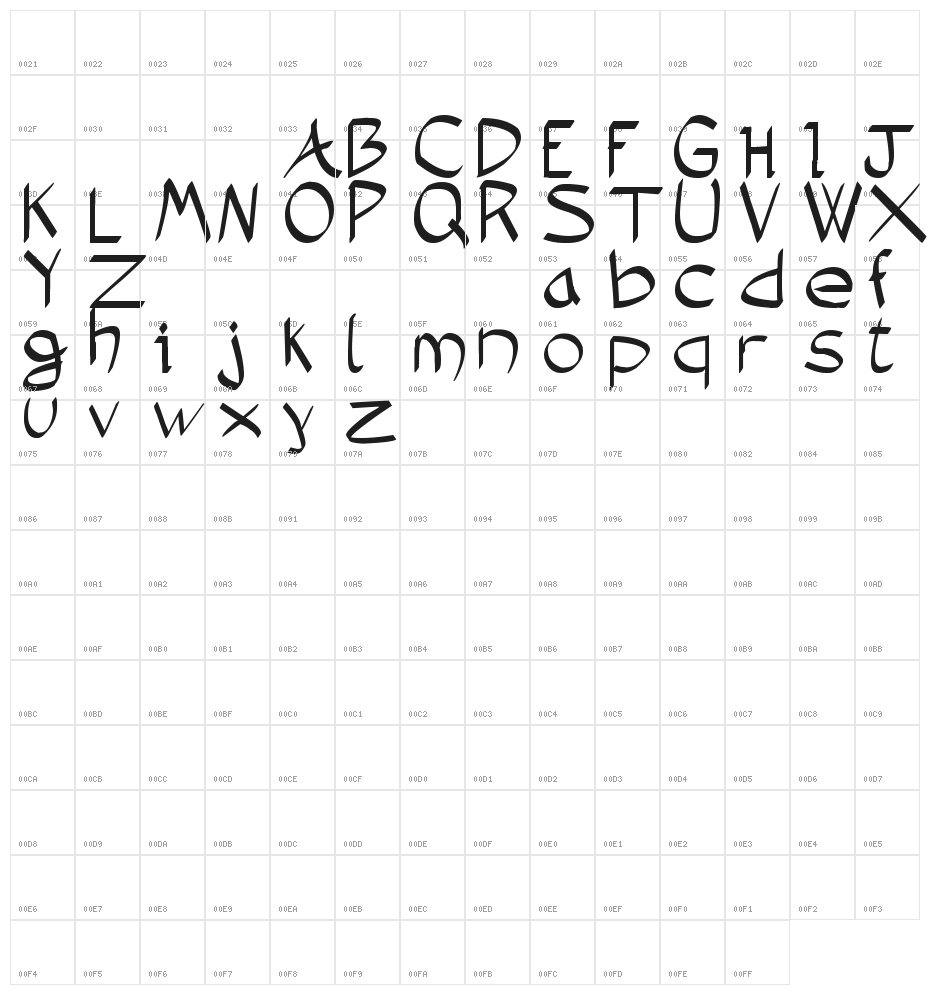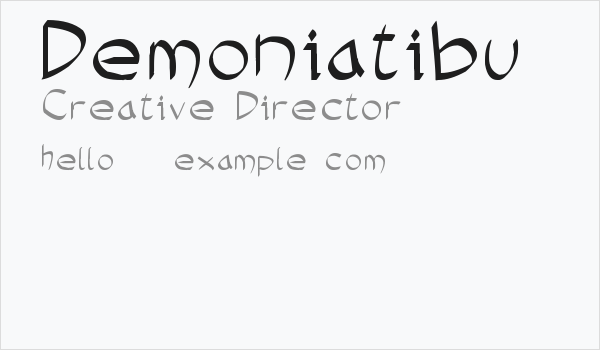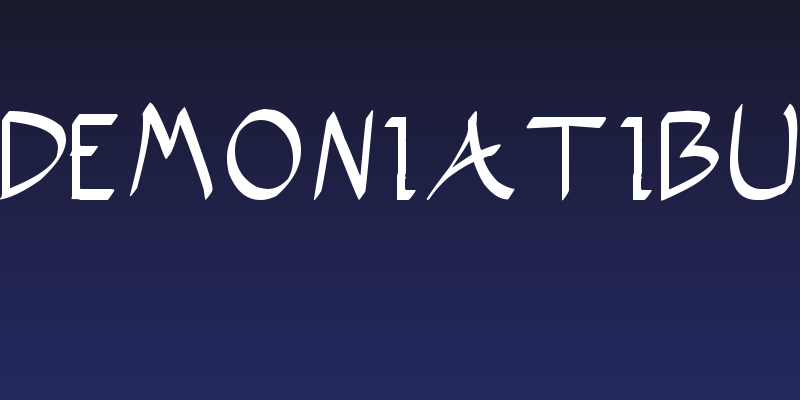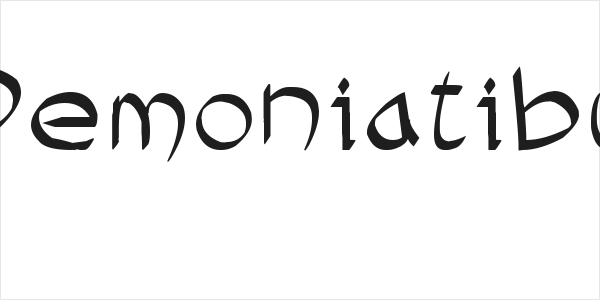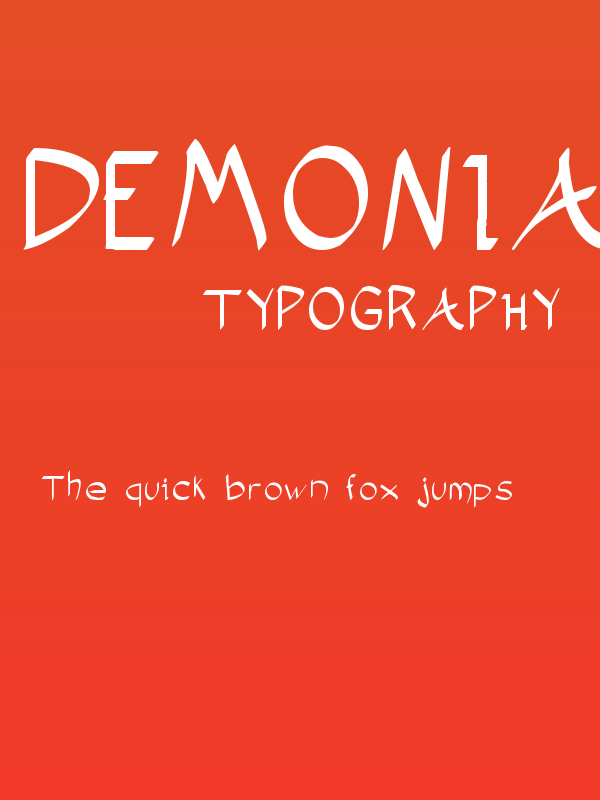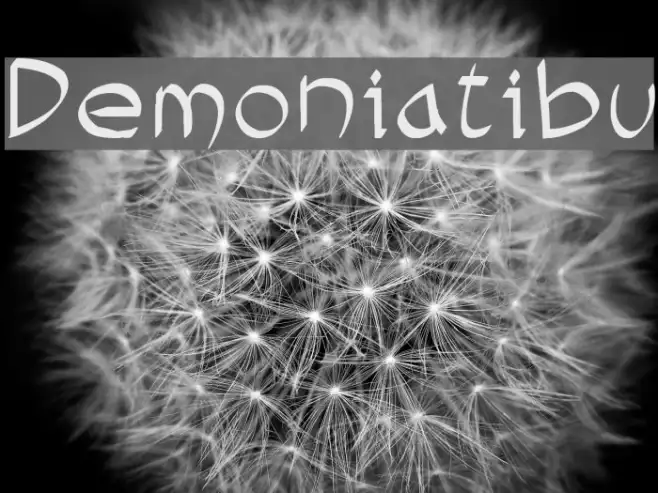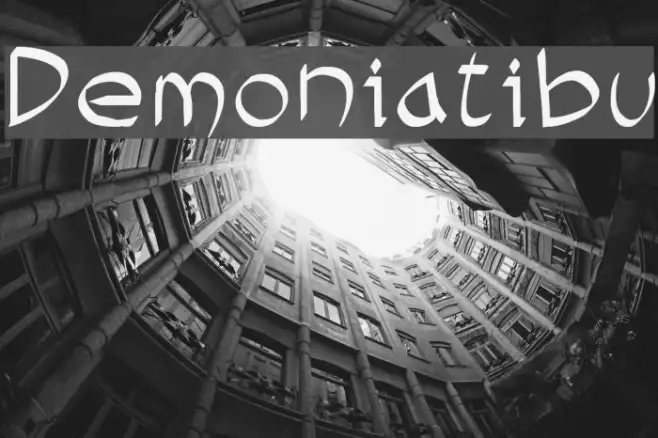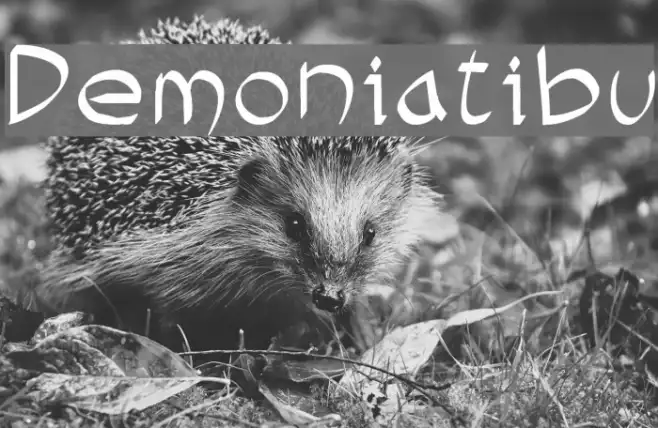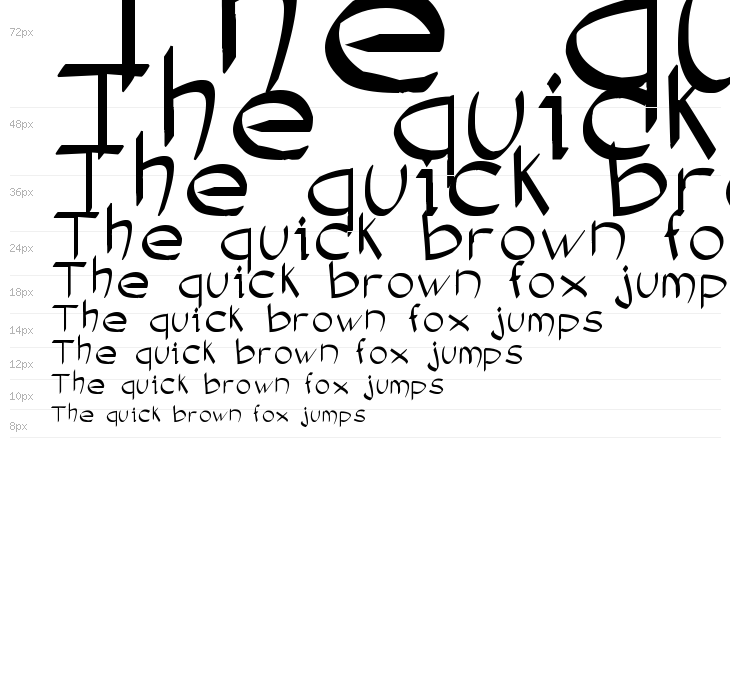
Demoniatibu Font
Demoniatibu Description
This font features a unique and edgy style, characterized by sharp angles and irregular strokes that give it a slightly chaotic yet artistic appearance. The uppercase letters are bold and dynamic, with varying stroke widths that add a sense of movement and energy. The lowercase letters maintain this theme, with some characters having exaggerated curves and others displaying angular cuts. The numbers and special characters follow the same design principles, ensuring consistency across the font. This font's distinctive style makes it stand out, offering a modern twist on traditional letterforms.
| Overall Style | Modern, Artistic |
| Proposed Projects | Ideal for music album covers, edgy branding, posters, and creative projects that require a bold statement. |